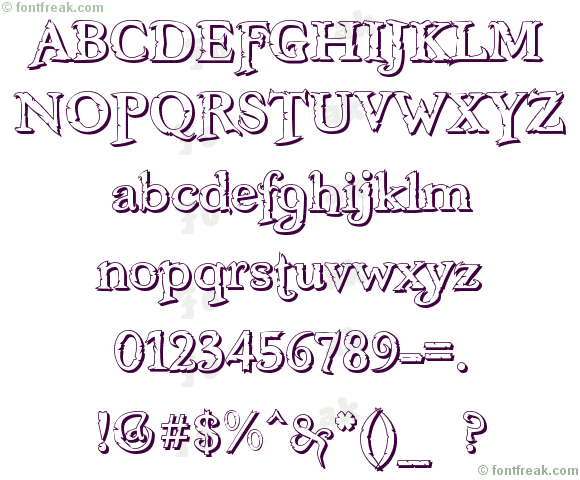
Freebooter Shadow
Freebooter Shadow is a distinctive display font created by Gemfonts, categorized as a decorative typeface. This font exhibits a unique blend of whimsy and elegance, making it an excellent choice for projects that require a playful yet sophisticated touch. The visual characteristics of Freebooter Shadow include medium to heavy stroke weights with noticeable contrast, creating a bold and eye-catching appearance. The playful, rounded edges and shadow effects add depth and dimension, enhancing its visual appeal. Additionally, the spacing between characters is thoughtfully designed to ensure readability while maintaining a dynamic flow.
This font is particularly well-suited for a variety of creative applications. It shines in wedding invitations, where its charming style can convey a sense of celebration and joy. Movie posters also benefit from its eye-catching aesthetic, drawing attention and evoking intrigue. Restaurant menus can utilize Freebooter Shadow to create a welcoming atmosphere, while branding materials for small businesses can leverage its unique character to stand out in a competitive market. Content creators will find this font particularly appealing for social media graphics, where a distinctive look can help capture audience attention.
What sets Freebooter Shadow apart is its ability to combine fun and functionality. The playful design elements make it memorable, while the clarity in its execution ensures it remains practical across various applications. For those in search of a versatile, eye-catching typeface, the Freebooter Shadow font free download is an excellent choice that brings both personality and professionalism to any project.